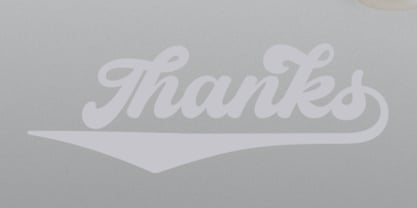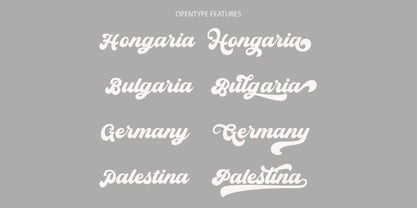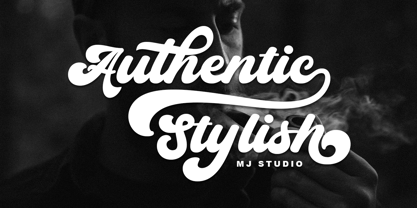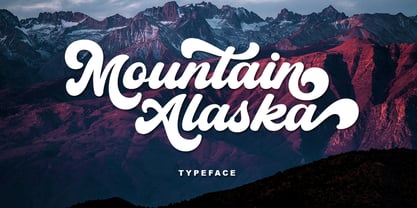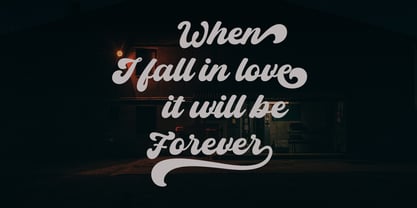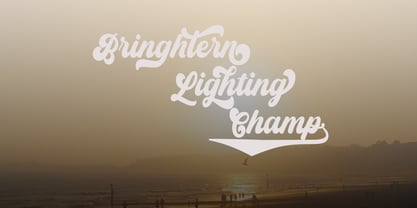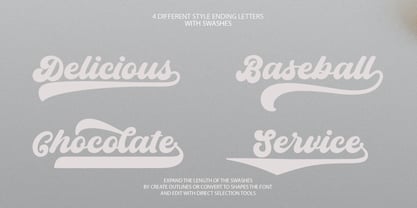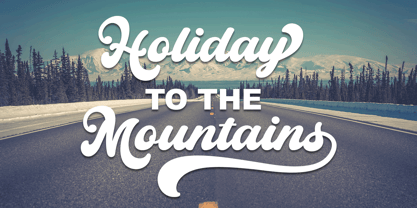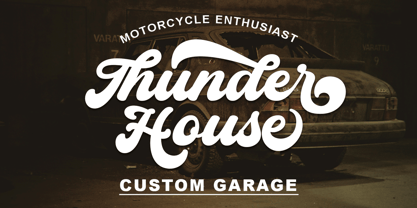
Mountain Alaska
The Mountain Alaska Font Family was designed by Ramadhan - and published by Mj Studio. Mountain Alaska contains 1 styles.
Mountain Alaska – A Bold & Elegant Script Typeface
Unleash the beauty and freedom of the wild with Mountain Alaska, a script font that combines boldness, elegance, and character. Ideal for branding, logo design, packaging, and countless other creative endeavors.
Key Features:
709 Glyphs – A rich variety of characters to enhance your designs.
21 Ligatures – Seamless, visually appealing letter transitions.
Front & Back Alternates – Versatility to craft unique compositions.
4 Swashes – Artistic flourishes to add dynamic style.
Middle Alternates – Infuse variety and intrigue into your typography.
Why Choose Mountain Alaska?
User-Friendly – Tailored for both novice and seasoned designers.
Multilingual Support – Effortlessly reach a global audience.
Premium Aesthetic – Elevates your designs with a luxurious, exclusive feel.
Meticulously crafted with attention to every detail, Mountain Alaska brings together strength and elegance in perfect harmony. With a variety of ligatures and alternates at your disposal, the creative possibilities are endless.